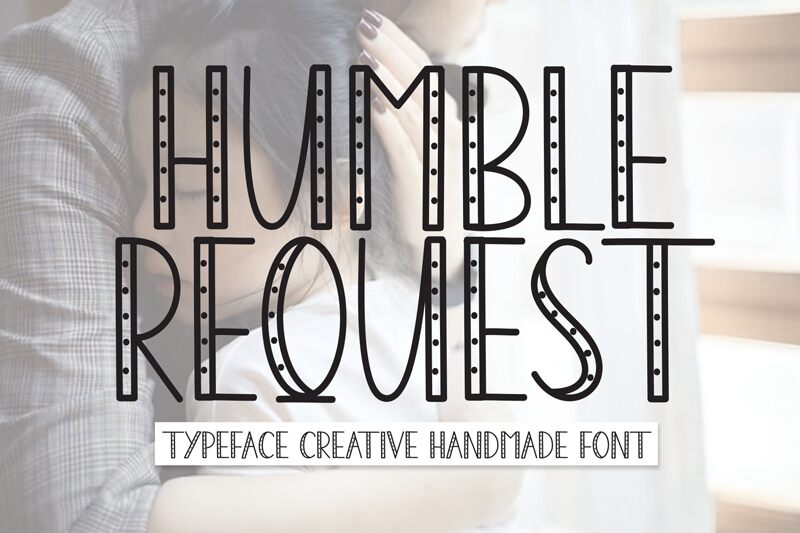
Humble Request
Humble Request, a captivating creation by designer Andi Moz, exudes a sweet, friendly charm. This whimsical, handwritten display font boasts a delightful, condensed silhouette, perfectly balancing playfulness and refinement. The carefully crafted letterforms, with their expressive strokes and harmonious curves, evoke a sense of warmth and approachability, promising a touch of endearing personality to any design.
Humble Request's versatility shines through, making it a versatile choice for a wide range of design applications. From elegant wedding invitations to charming greeting cards, this font's unique character lends itself to projects that seek to convey a heartfelt, personal touch. Its playful yet polished aesthetic effortlessly bridges the gap between formal and informal, making it a delightful addition to any designer's toolbox.